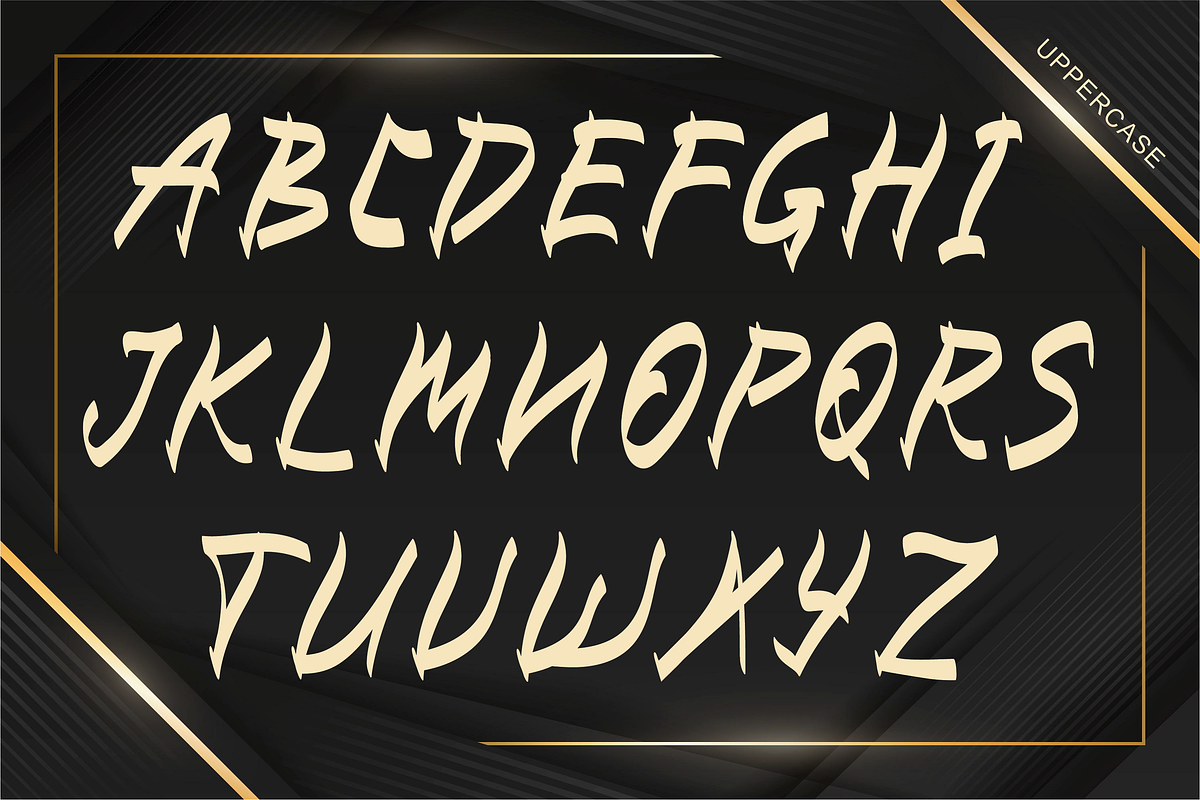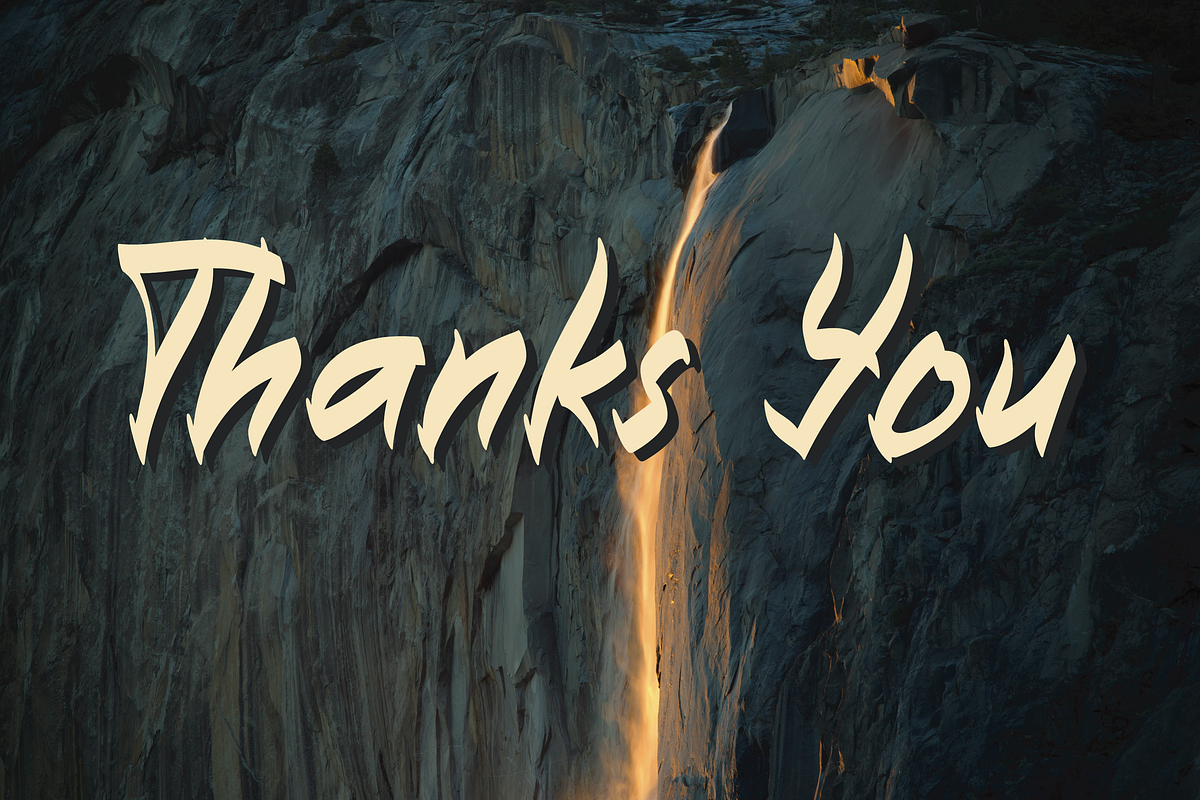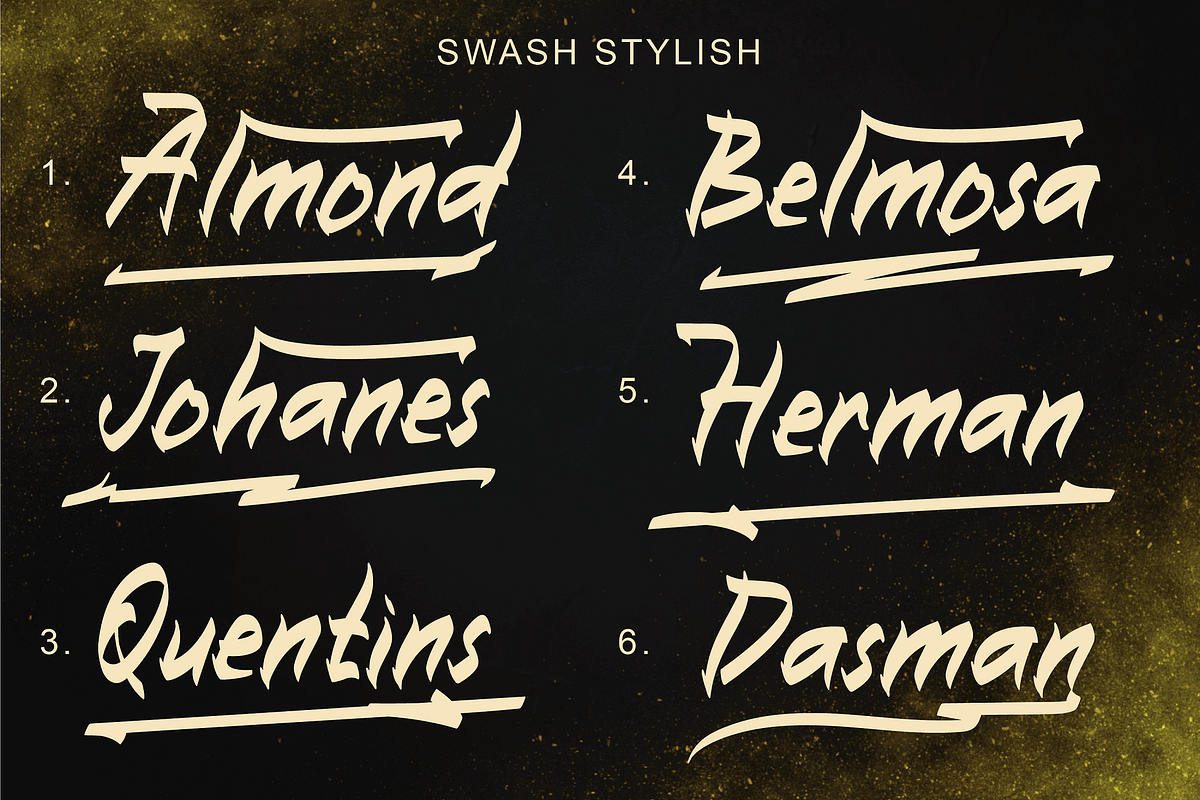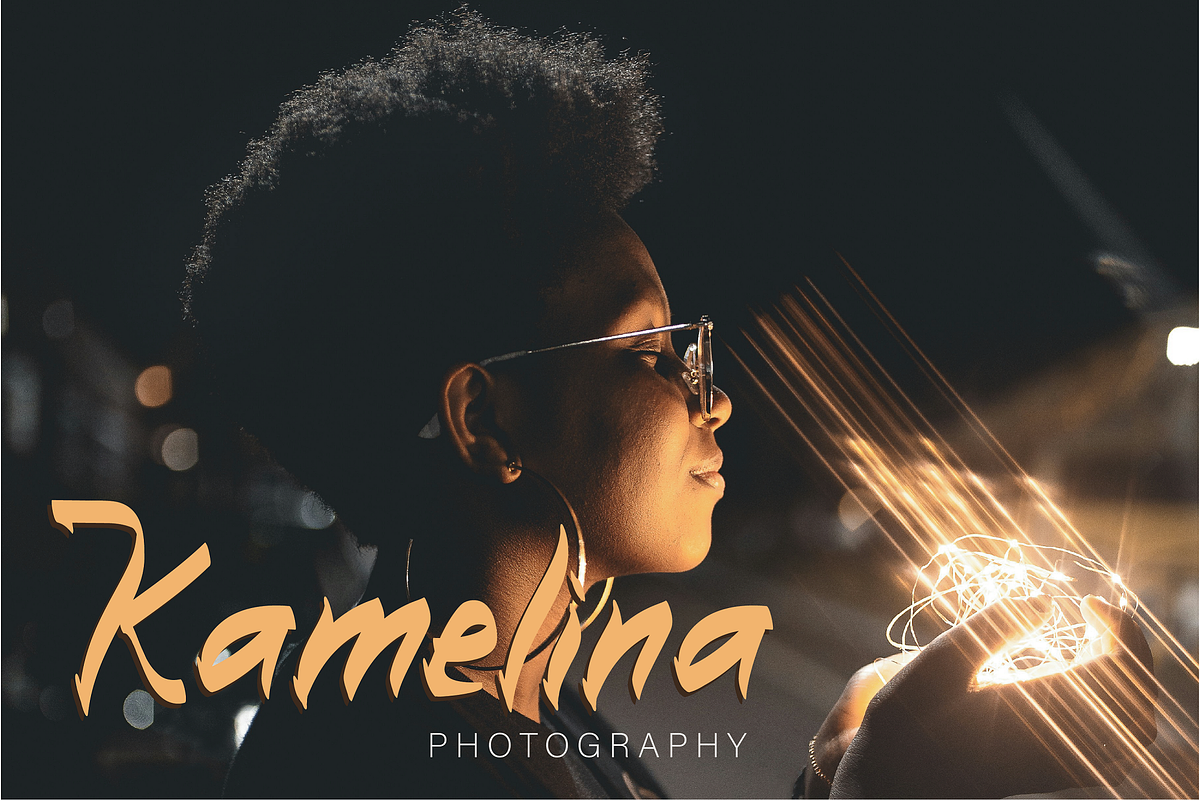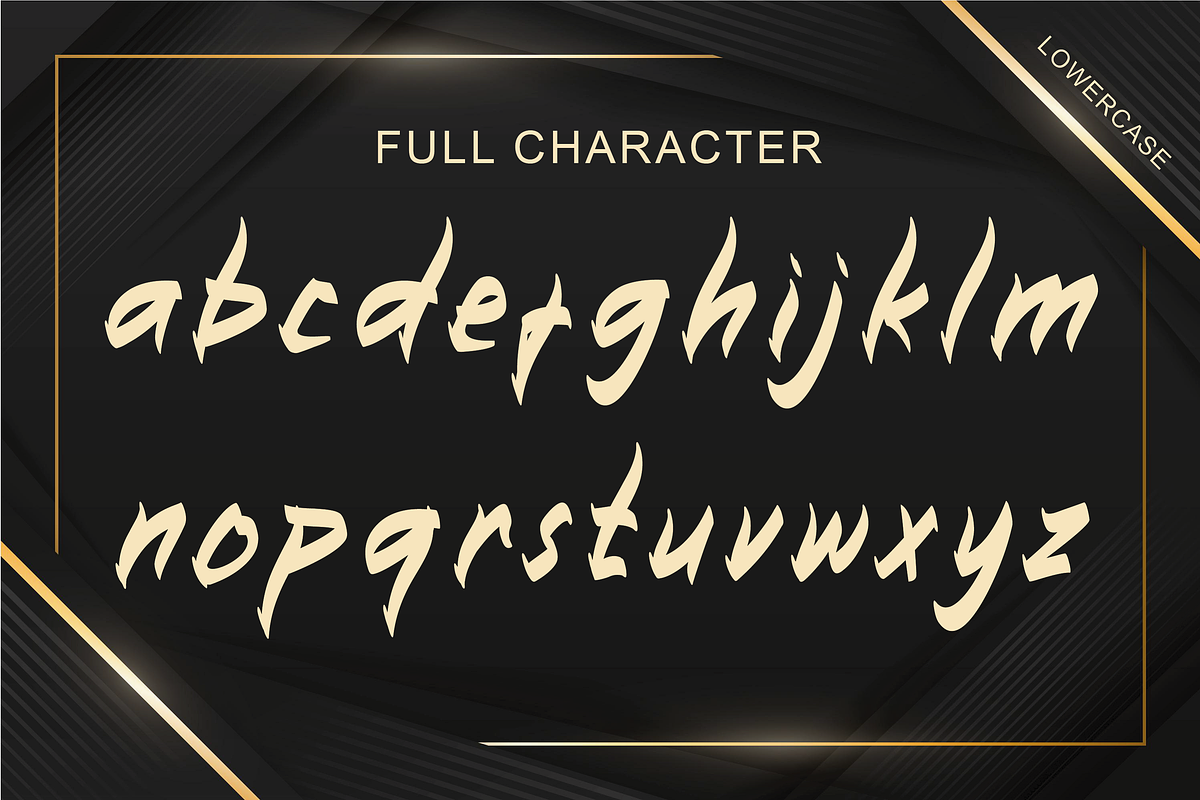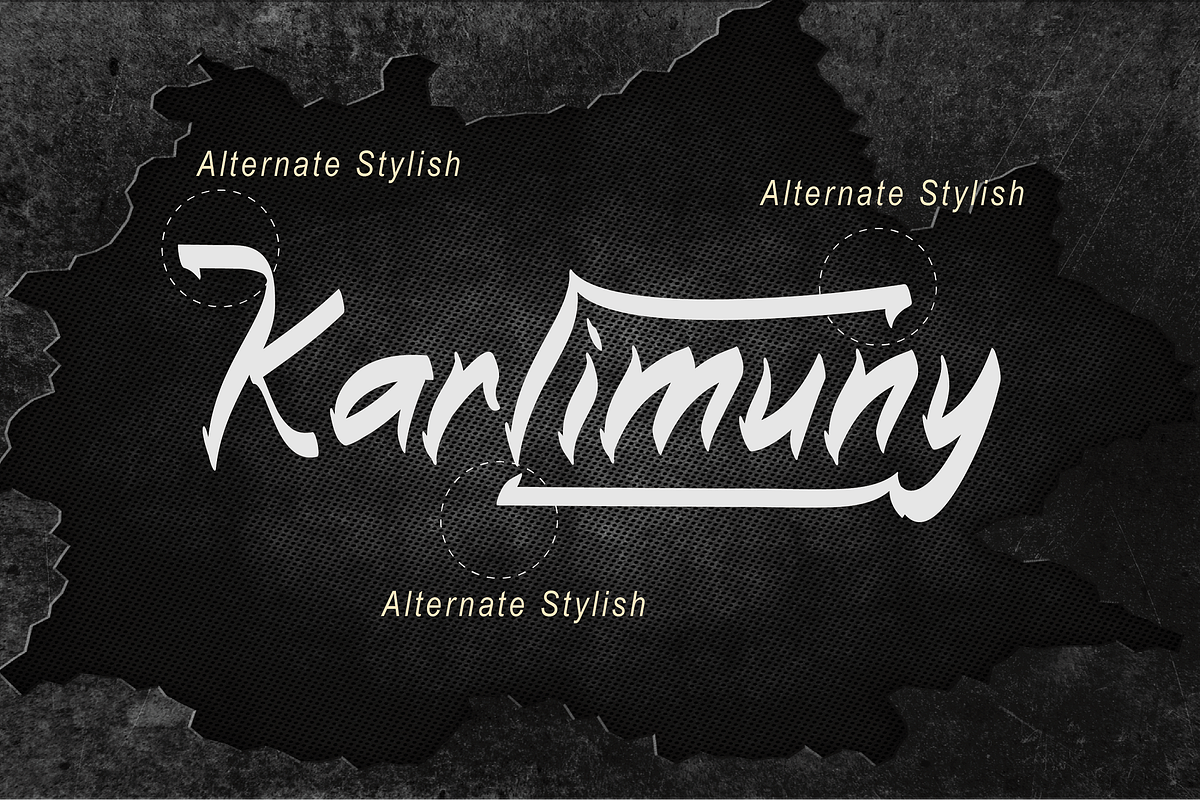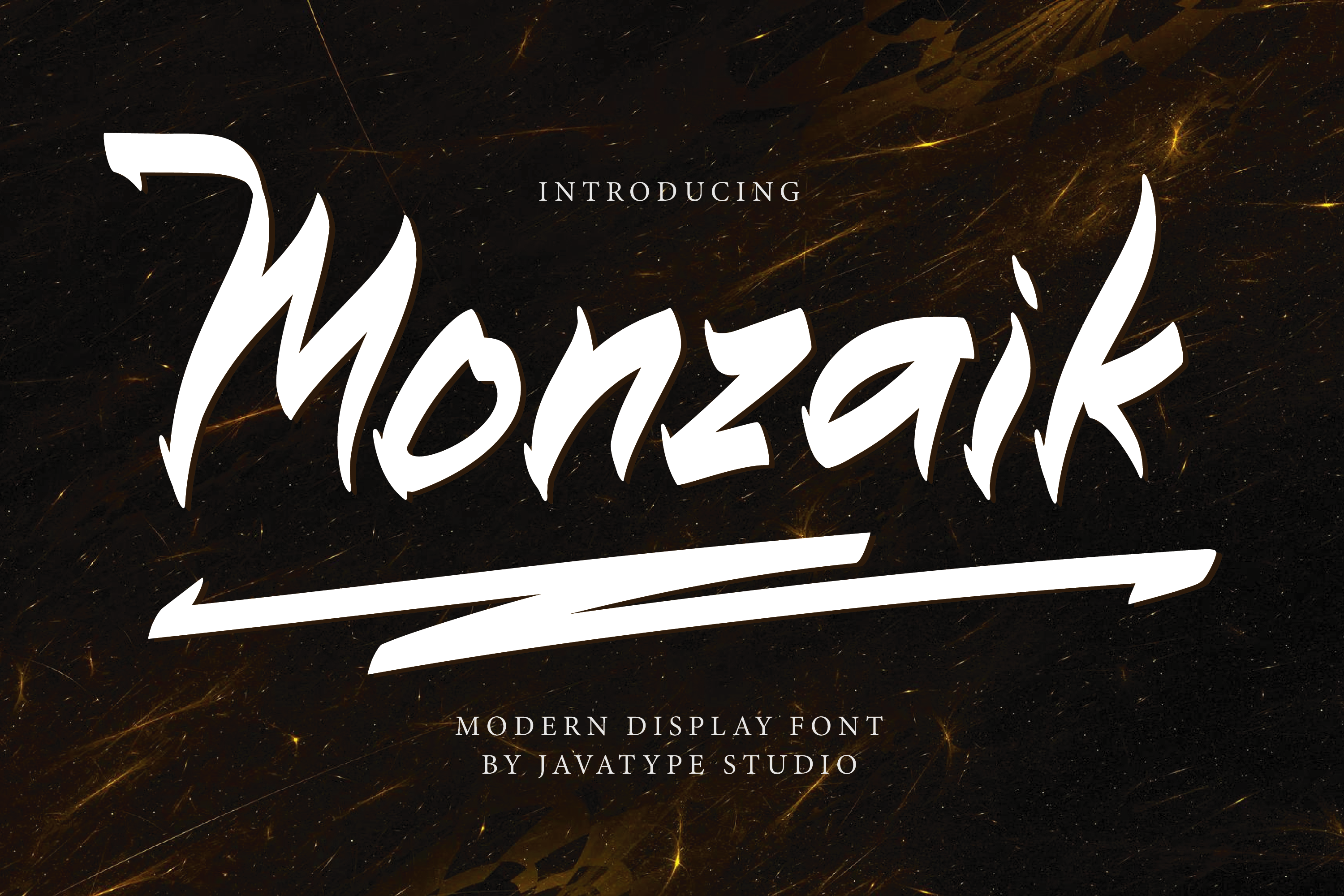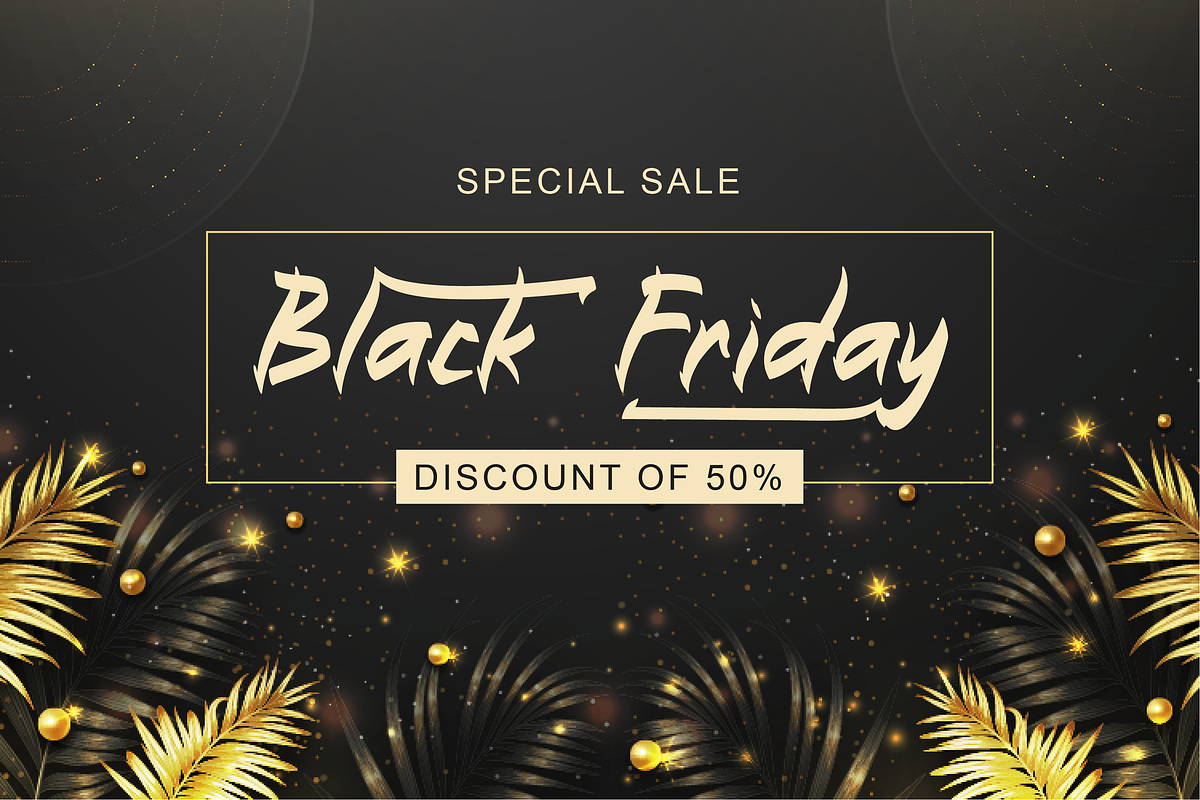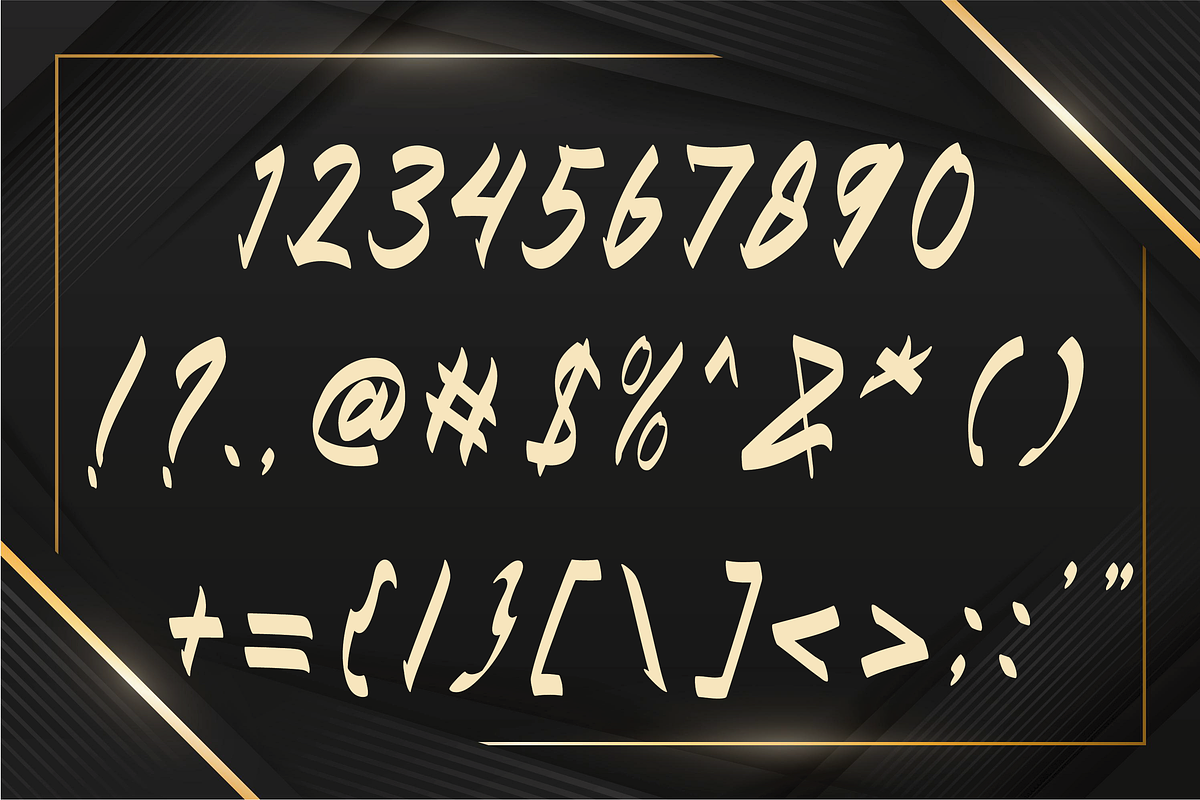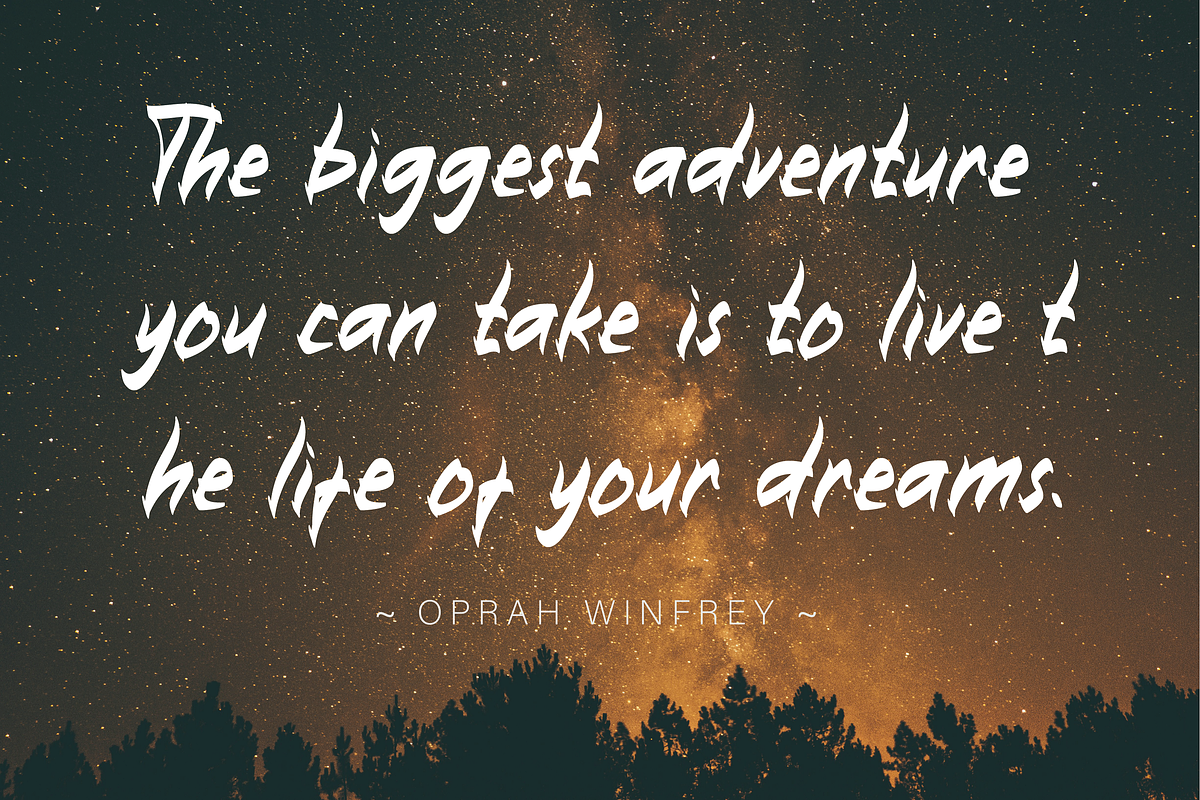
Monzaik a display font
Introducing Monzaik, a striking display font that showcases a unique personality and style. This font comes alive with its daring italicized features and adds an edge with deliberately executed strokes, contributing to an overall spine-chilling perception. With Monzaik at your fingertips, you can add that distinct handwriting flair to anything from professional photography, watermarks, and gripping social media posts, to inspirational quotes and eye-catching book covers.
Monzaik would be perfect for photography, watermark, social media posts, quotes, cover book, tshirt, branding, logos & branding, invitation, product designs, label, stationery, product packaging, special events or anything that need handwriting taste.